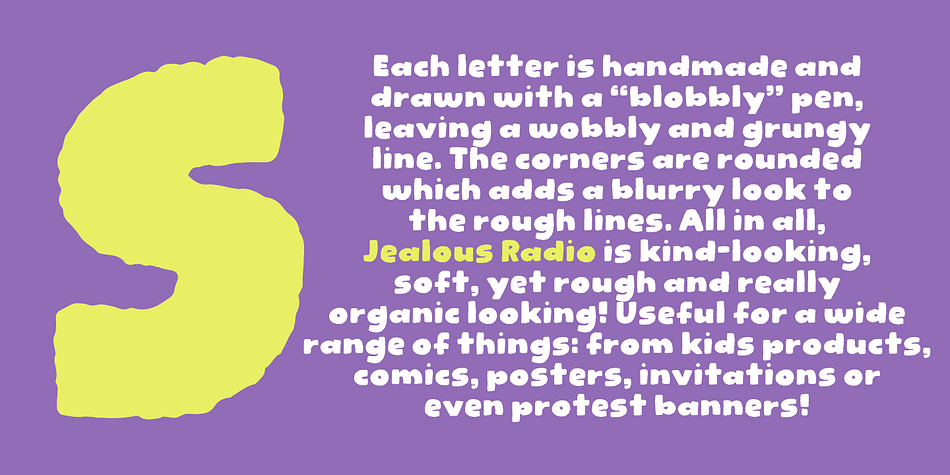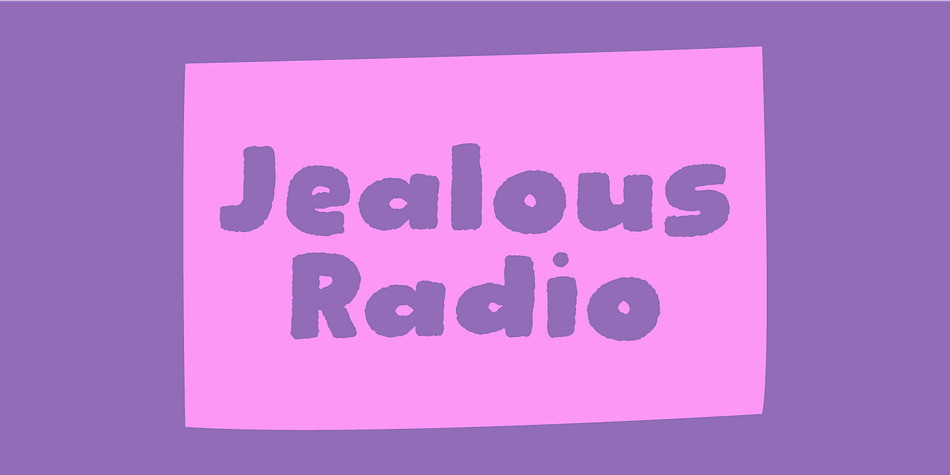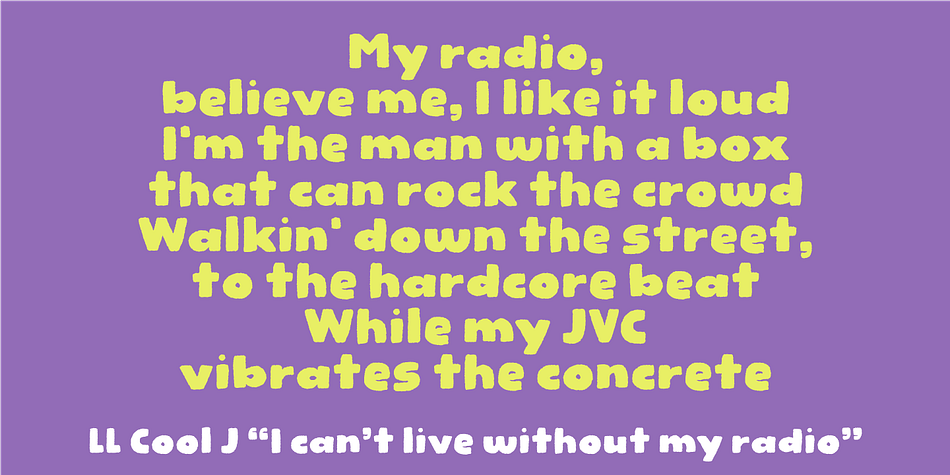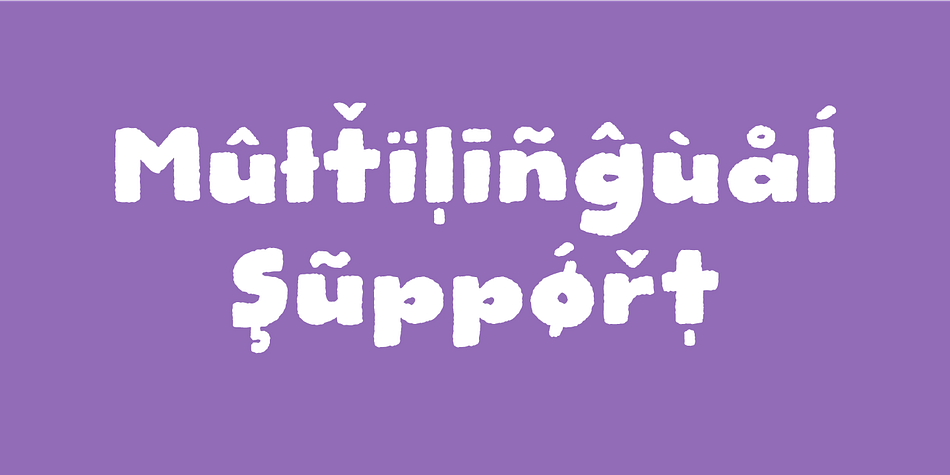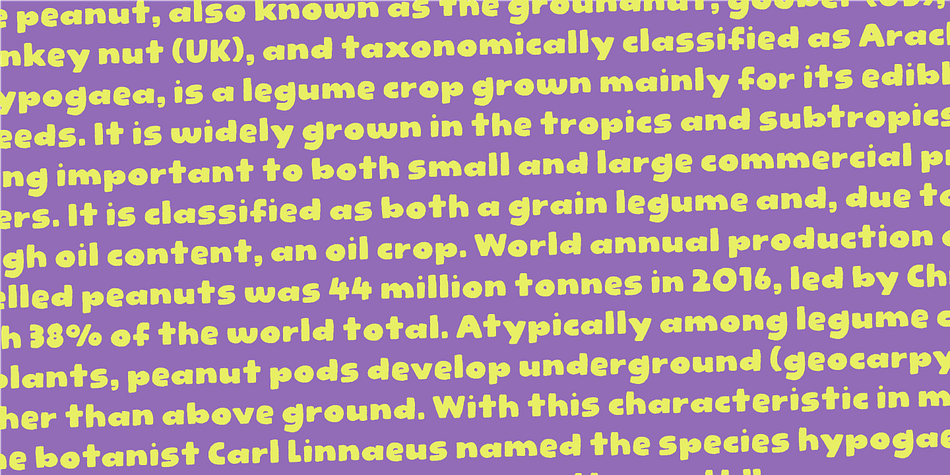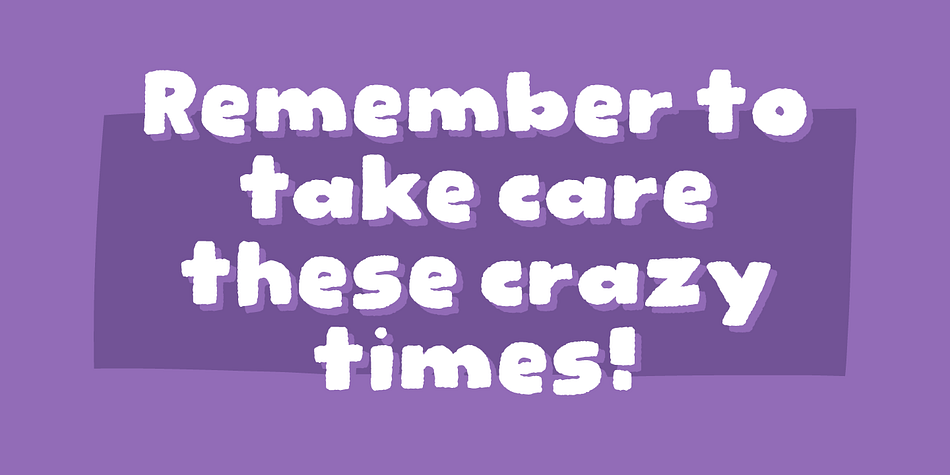
Designed by Jakob Fischer, Jealous Radio is a hand display font family. This typeface has two styles and was published by Bogstav.
Each letter is handmade and drawn with a “blobbly” pen, leaving a wobbly and grungyline. The corners are rounded which adds a blurry look to the rough lines. All in all, Jealous Radio is kind-looking,soft, yet rough and really organic looking! Useful for a wide range of things: from kids products, comics, posters, invitations or even protest banners!